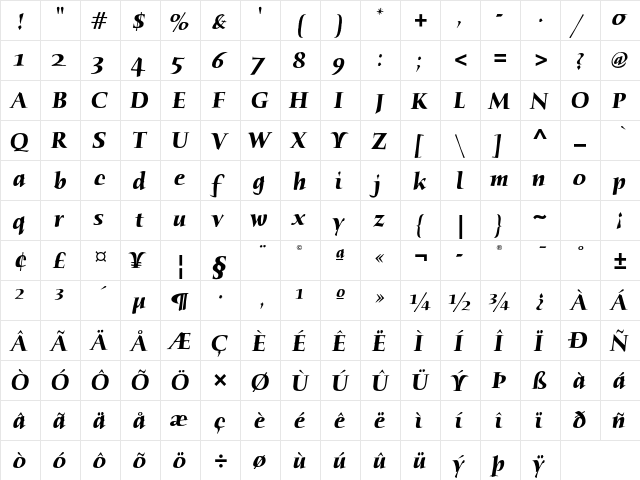
Humana Serif ITC Std Bold Italic Font Preview
| Designer | Timothy Donaldson |
Design Context for Humana Serif ITC Std Typeface
Humana Serif ITC Std brings classic typographic sensibility to the table — its serifs and measured letterforms reflect centuries of print heritage. The dynamic lean of this cut emphasises speed and emphasis in any layout. The heavy weight commands attention and anchors typographic hierarchies.